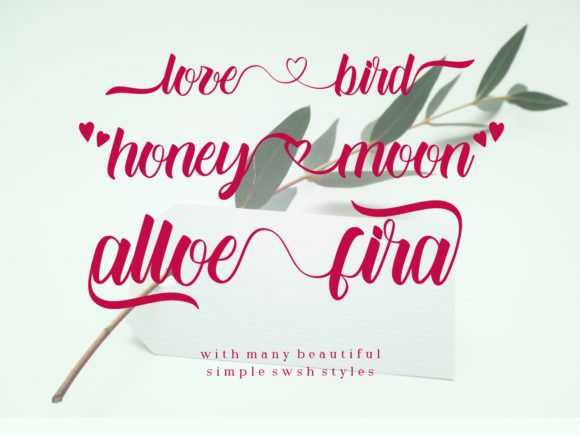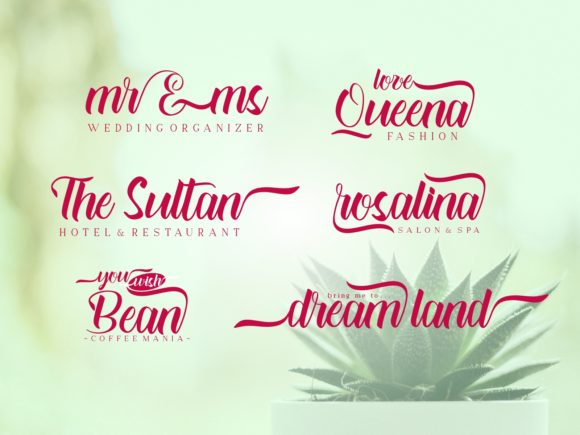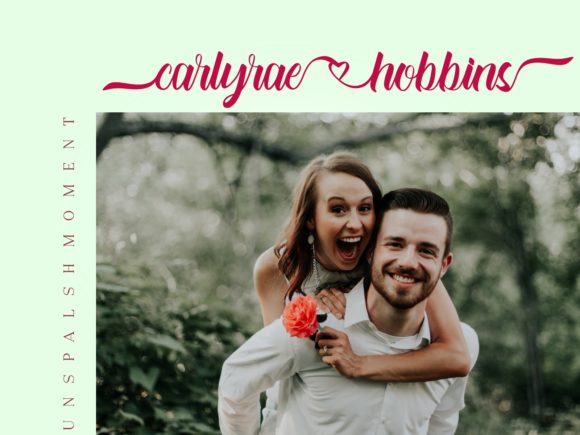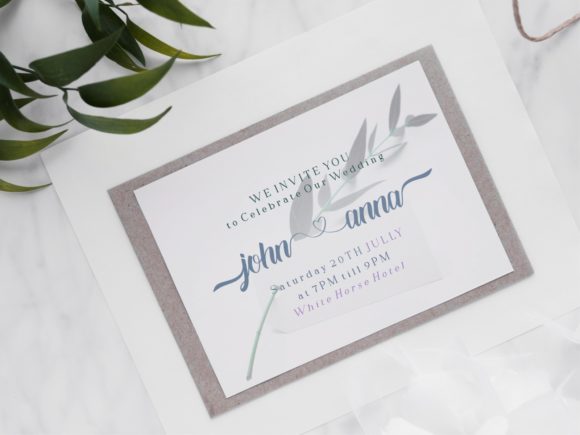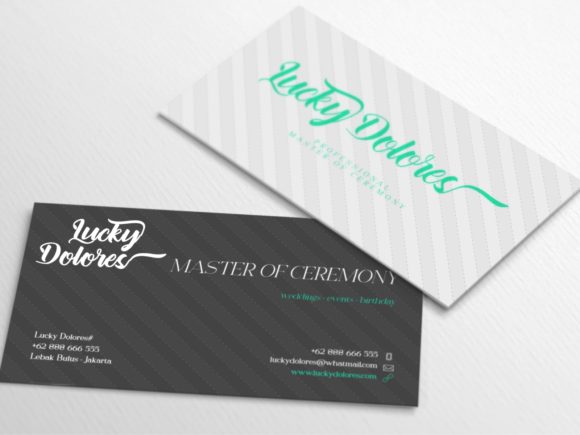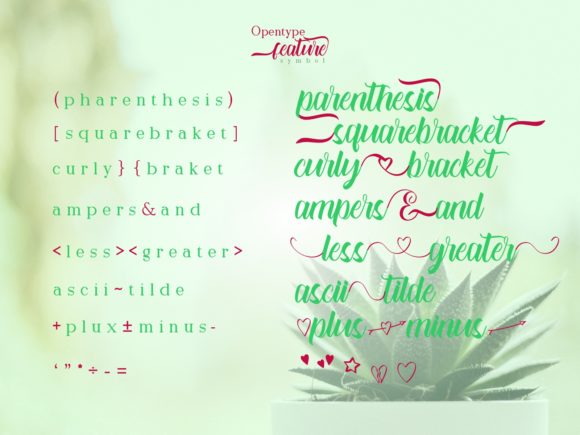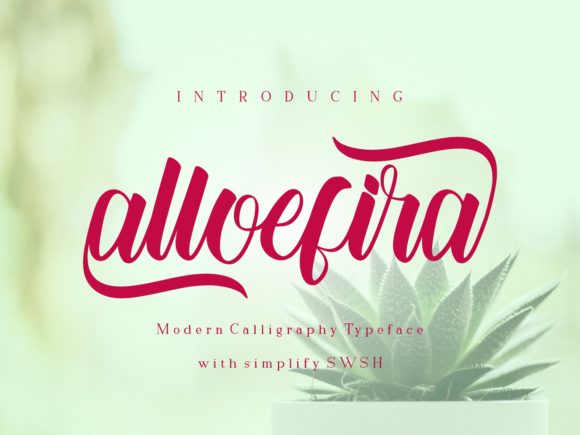
Introducing Alloefira Font: The Perfect Handwritten Font for Your Creative Projects
Are you a designer or crafter looking for a beautiful and authentic handwritten font to elevate your creative projects? Look no further than Alloefira Font! This stunning font features a varying baseline, smooth lines, gorgeous glyphs, and stunning alternates that will make your designs stand out.
What Makes Alloefira Font So Special?
Alloefira Font is a beautiful handwritten font that is perfect for creating gorgeous wedding invitations, beautiful stationary art, eye-catching social media posts, and cute greeting cards. Its authentic feel and unique characteristics make it an ideal choice for designers and crafters who want to add a personal touch to their work.
One of the standout features of Alloefira Font is its varying baseline, which gives it a natural and organic feel. The smooth lines and gorgeous glyphs add to its beauty, making it a joy to use in a variety of design projects. Additionally, the font comes with stunning alternates that allow you to add some extra flair to your designs.
Uses for Alloefira Font
Alloefira Font is a versatile font that can be used in a wide range of design projects. Here are some ideas to get you started:
- Wedding Invitations: Create beautiful and elegant wedding invitations that will set the tone for the big day.
- Stationary Art: Use Alloefira Font to create stunning stationary art, including notecards, journals, and planners.
- Social Media Posts: Add a personal touch to your social media posts with Alloefira Font. It’s perfect for creating eye-catching graphics and quotes.
- Greeting Cards: Create cute and personalized greeting cards for special occasions, such as birthdays, holidays, and anniversaries.
Why Designers and Crafters Love Alloefira Font
Designers and crafters love Alloefira Font for many reasons. Here are a few:
- Authentic Feel: Alloefira Font has an authentic feel that makes it perfect for creating designs that look like they were created by hand.
- Ease of Use: The font is easy to use and comes with a simple and intuitive design.
- Customization: With stunning alternates and gorgeous glyphs, Alloefira Font offers a high level of customization.
- Versatility: The font can be used in a wide range of design projects, from wedding invitations to social media posts.
Tips for Using Alloefira Font
Here are some tips for using Alloefira Font in your design projects:
- Experiment with Different Sizes: Alloefira Font looks great in a variety of sizes, so don’t be afraid to experiment.
- Pair it with Other Fonts: Try pairing Alloefira Font with other fonts to create a unique and interesting design.
- Use it for Headlines and Body Text: Alloefira Font is perfect for both headlines and body text, making it a great choice for a wide range of design projects.
| Font Name | Alloefira Font |
| Author | nryntdw |
Alloefira Font is a beautiful and authentic handwritten font that is perfect for designers and crafters who want to add a personal touch to their work. With its varying baseline, smooth lines, gorgeous glyphs, and stunning alternates, it’s an ideal choice for creating gorgeous wedding invitations, beautiful stationary art, eye-catching social media posts, and cute greeting cards. So why wait? Download Alloefira Font today and start creating stunning designs that will leave a lasting impression!